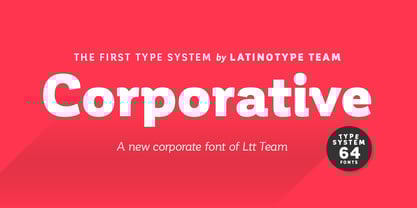
Corporative Font
Corporative Font is perfectly suited for corporate branding systems, professional business communications, annual report designs, executive presentations, financial documentation, enterprise software interfaces, institutional signage, boardroom materials, and authoritative corporate publications.
What makes Corporative Font so exciting is its commanding executive presence and uncompromising professional authority that instantly establishes credibility and corporate excellence through every precisely engineered letterform. This distinguished typeface embodies the highest standards of business communication with its clean, authoritative character shapes and balanced proportions that convey competence, reliability, and executive sophistication. The font's corporate styling and professional clarity create an atmosphere of business excellence and institutional trust that resonates with decision-makers and stakeholders who value proven performance and corporate integrity. Corporative Font stands out through its ability to convey executive authority, business competence, and corporate reliability, making it perfect for projects that need to establish institutional credibility while communicating with audiences who demand the highest standards of professional excellence and business sophistication.
The Corporative Font family includes Light, Regular, Medium, Bold, and Black weights, each available in both roman and italic styles for comprehensive corporate communication needs. The family also features condensed variations and executive design elements that enhance the font's authoritative appeal and provide complete solutions for sophisticated corporate branding systems requiring consistent professional presence.
The technical excellence of Corporative Font includes comprehensive character sets supporting multiple languages, advanced OpenType features, and precision-engineered spacing optimized for executive communications and corporate documentation. The font maintains exceptional legibility across all business applications while providing the authority needed for high-stakes corporate communications that require unwavering professional credibility and institutional trust.
Whether you're developing corporate identity systems, creating executive communications, designing institutional materials, or building comprehensive business brands that demand the highest level of corporate authority and professional excellence, Corporative Font delivers the perfect combination of executive sophistication and institutional reliability that ensures your projects command respect and establish ultimate credibility in competitive business environments.